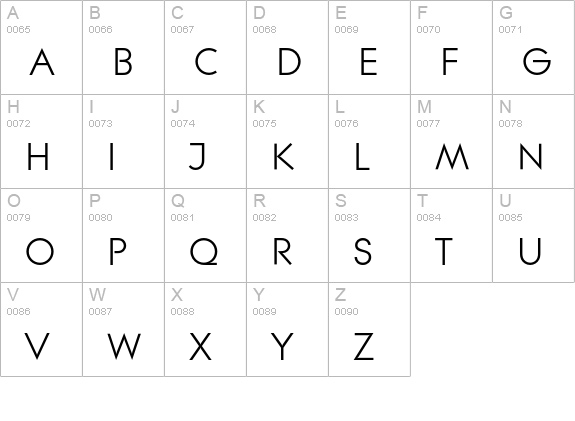
LiteraEF-Regular is the standard, neutral variant in the LiteraEF typeface family \xE2\x80\x94 well suited to general body text, paragraphs, and standard typographic work.
The LiteraEF-Regular font is a versatile and elegant typeface that combines classic design elements with a modern twist. Its clean lines and balanced proportions make it perfect for a wide range of design projects, from branding to editorial design. The font exudes sophistication and professionalism, making it a great choice for both print and digital applications. Best of all, the LiteraEF-Regular font is available for free download at FontsMarket.com. This means that you can easily access this high-quality typeface without any cost, allowing you to incorporate it into your projects with ease. Whether you're a seasoned designer or just starting out, the LiteraEF-Regular font is a valuable addition to your font library. Download it today and elevate your designs with this timeless and versatile typeface.